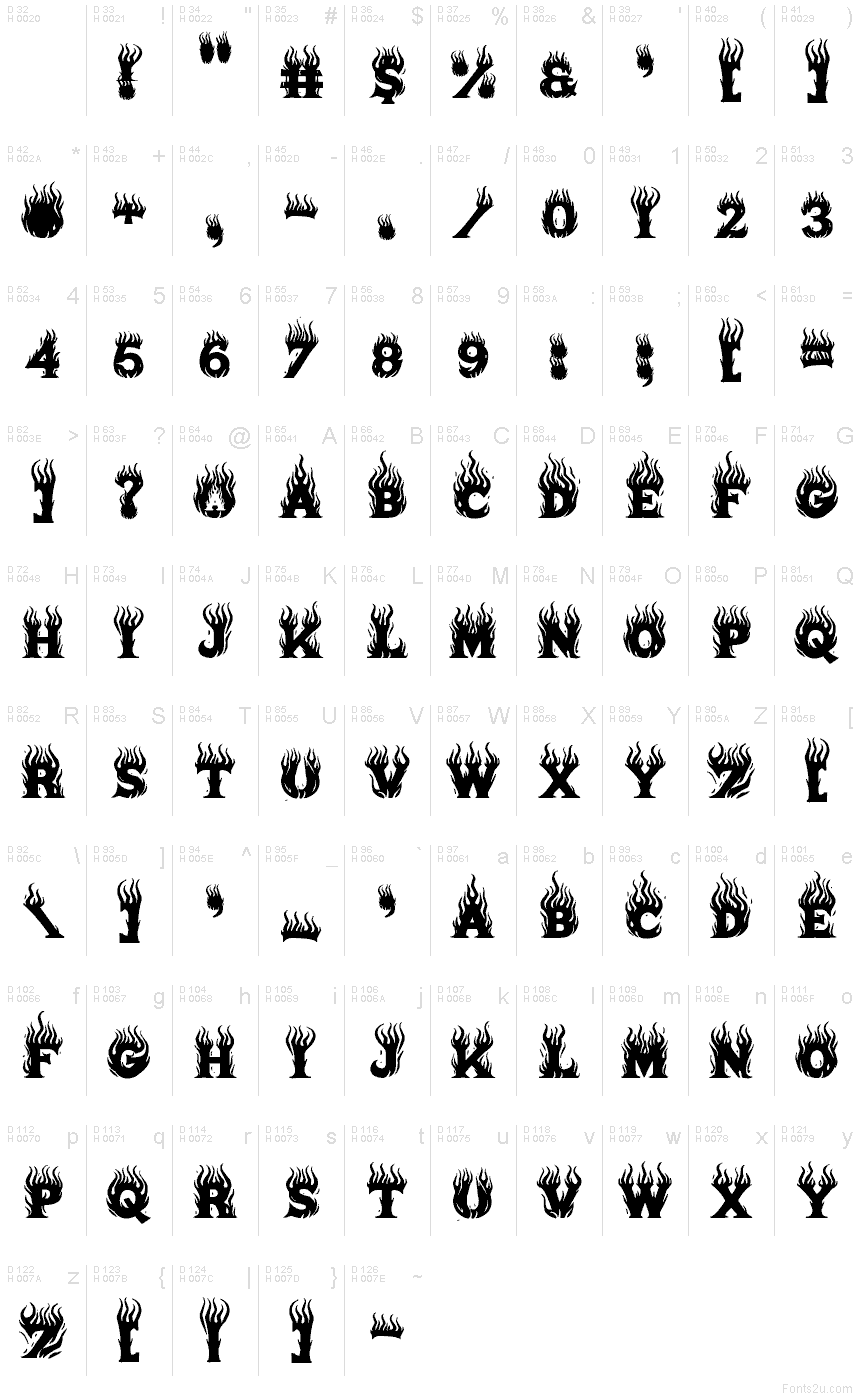
Blaze of Glory
Blaze of Glory font by Chequered Ink is a decorative display font with flame-inspired elements. Designed in expanded width and bold weight, it creates an intense and dramatic look that grabs attention immediately. The visually striking letters give off a burning sensation inspired by flames, leaving behind an eye-catching overall dramatic mood.
The typestyle shines in movies or tattoos themes, extreme sports branding, motor racing posters, adventure recreations, musical performances. Other use cases can include club identities, video game designs, food items packaging labels like spices or hot sauces to name a few. Exhibit your projects with this free typeface and enjoy the stunning results it brings.